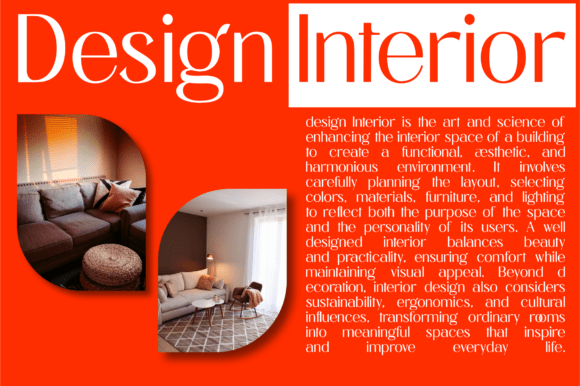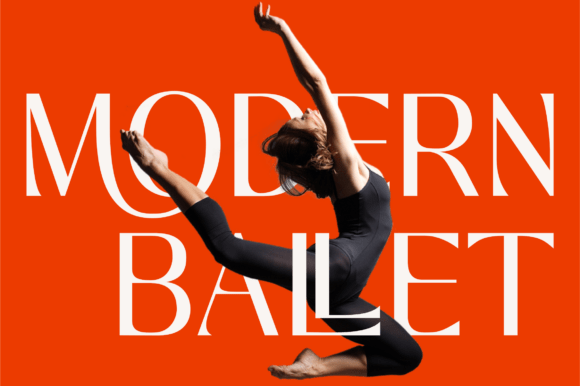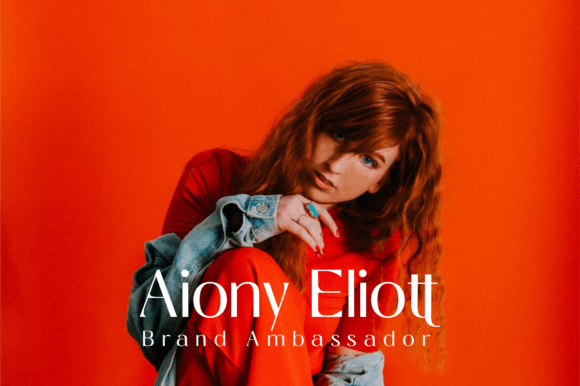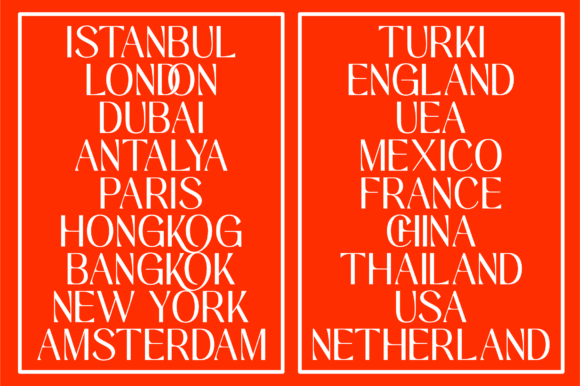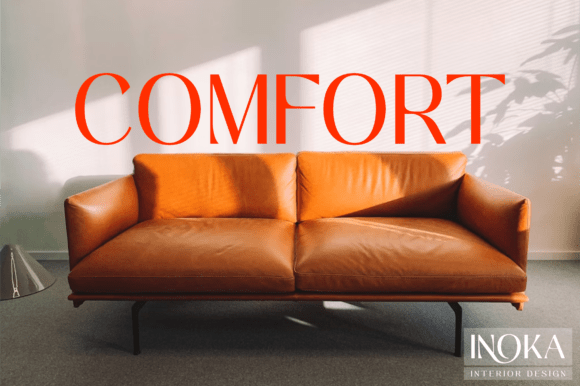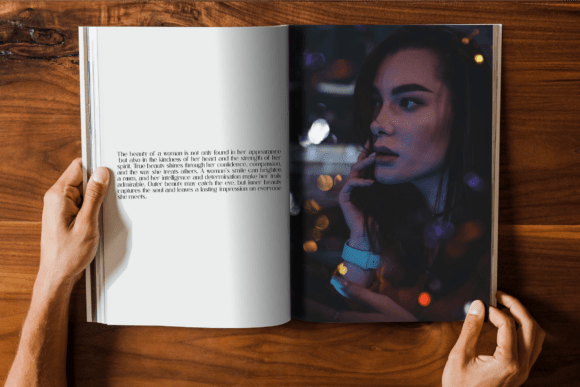
Introduction to Mosffets Font
Mosffets is a modern and elegant display typeface designed to bring sophistication and creativity to your design projects.
Its harmonious ligatures and stylish letterforms make it perfect for designers who value balance and aesthetic beauty This font works beautifully across a wide range of applications — from branding and logo design to magazine covers, packaging, movie titles, posters, and more.
Key Features of Mosffets Font
Mosffets Font offers exceptional quality and versatility, making it a valuable addition to your design toolkit. Whether you’re creating for personal projects or commercial use, Mosffets Font delivers professional results.